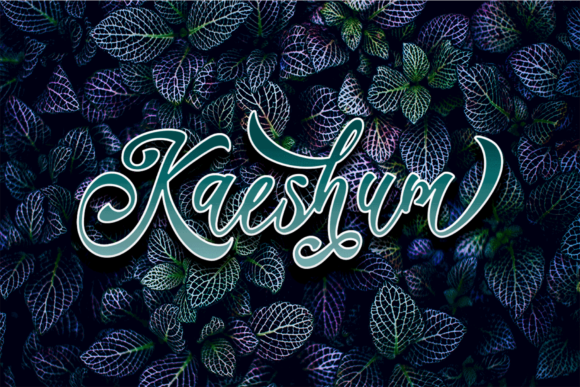
Venture into the realm of captivating typography with Kaeshum Script, a font that embodies elegance and boldness. Its striking letters, adorned with a hint of modern flair, will infuse your designs with a memorable and distinctive touch.
Born from the creative vision of Fajry's Type, Kaeshum Script transcends the boundaries of ordinary fonts. Its carefully crafted curves and confident strokes evoke a sense of sophistication, while its bold presence commands attention. Whether you seek to create stunning logos, eye-catching headlines, or captivating social media posts, Kaeshum Script is your font of choice.
Step into the spotlight with Kaeshum Script, a font that elevates your designs to new heights. Its bold and captivating style will leave an indelible mark on your audience, ensuring your messages resonate with power and confidence. Unleash your creativity and immerse yourself in a world of typographic artistry with Kaeshum Script.